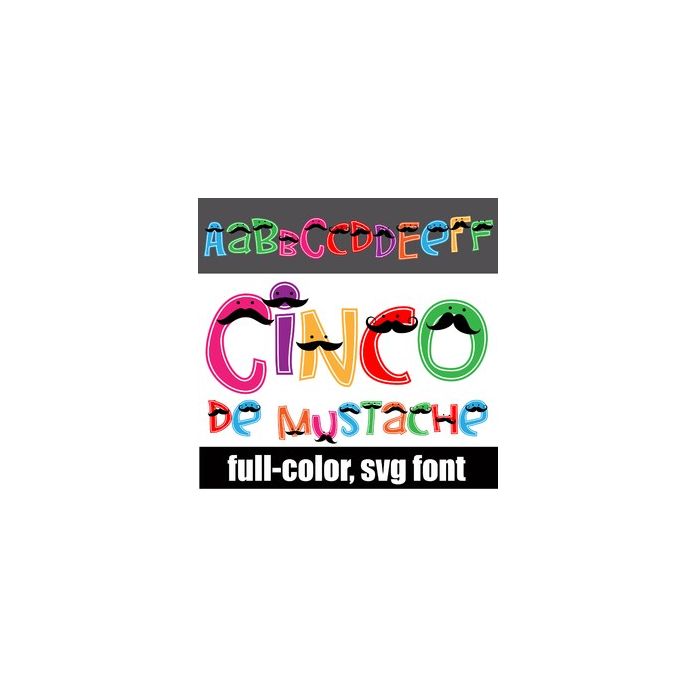
This full-color font features brightly colored lettering and mustaches. There is a an alt version w/ secondary colors available through your system's or Silhouette's glyph map.